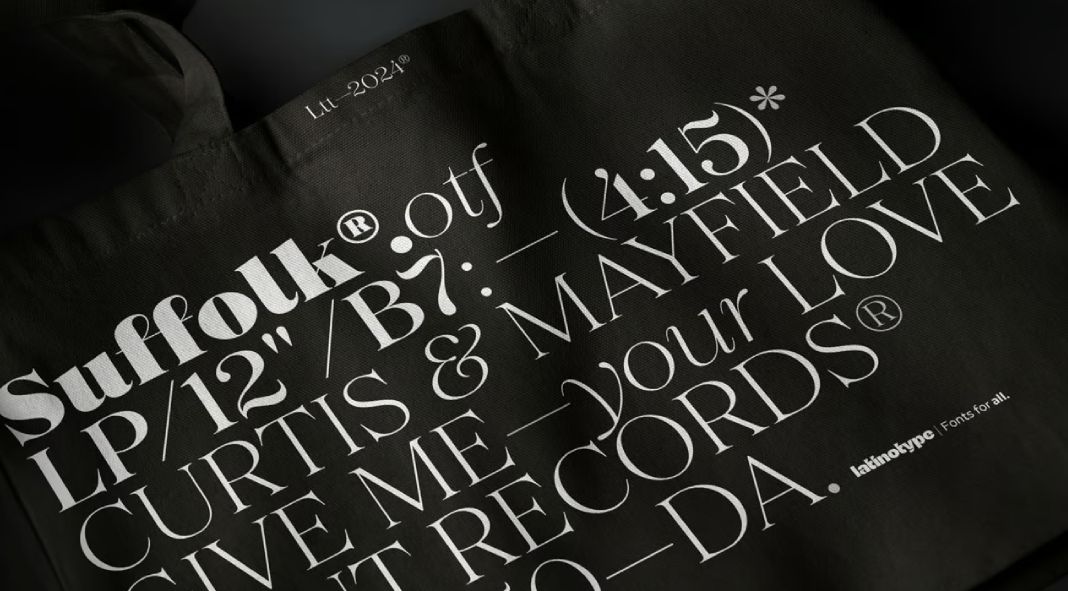
Unleash Your Inner Royalty: The Princesa Font Family Arrives
Move over, generic fonts. The design world just got a serious injection of elegance with the arrival of the Princesa font family by Latinotype. Created by the dynamic duo of Enrique Hernández and Eli Hernández, Princesa isn’t just a typeface; it’s a crown jewel for your design arsenal.
Fit for a Queen (or King) of Design
Princesa exudes sophistication with its beautifully rendered curves and a touch of playful personality. Imagine the impact of a wedding invitation adorned with the delicate script of Princesa, or a website headline that commands attention with its regal presence. This versatile font family offers a whopping 36 styles, giving you the power to tailor your design to any project, from whimsical invitations to bold brand statements.
Princesa font family by Latinotype
Why Princesa Belongs in Your Design Kingdom
• Dual Design Power: The magic of Princesa lies in its two distinct yet complementary styles. The “Formal” version delivers a classic, serifed elegance, while the “Informal” embraces a more whimsical, script-like charm. Mix and match, or choose the perfect style for your vision – the choice is yours!
• A Crown Fit for All Languages: Don’t be fooled by the name – Princesa is a global citizen, supporting a wide range of languages with Latin character sets. Let your designs speak to a worldwide audience with regal flair.
Unleash the Creative Potential
So, whether you’re crafting a logo that demands attention, a website that oozes sophistication, or a social media post that begs to be shared, Princesa is your secret weapon. This font family elevates your designs from ordinary to extraordinary, transforming them into works of art that command respect and admiration.
Ready to Rule the Design World?
Don’t just design, reign supreme with the power of typography at its finest. Remember, with great fonts comes great design responsibility – use Princesa wisely and watch your creative kingdom flourish!